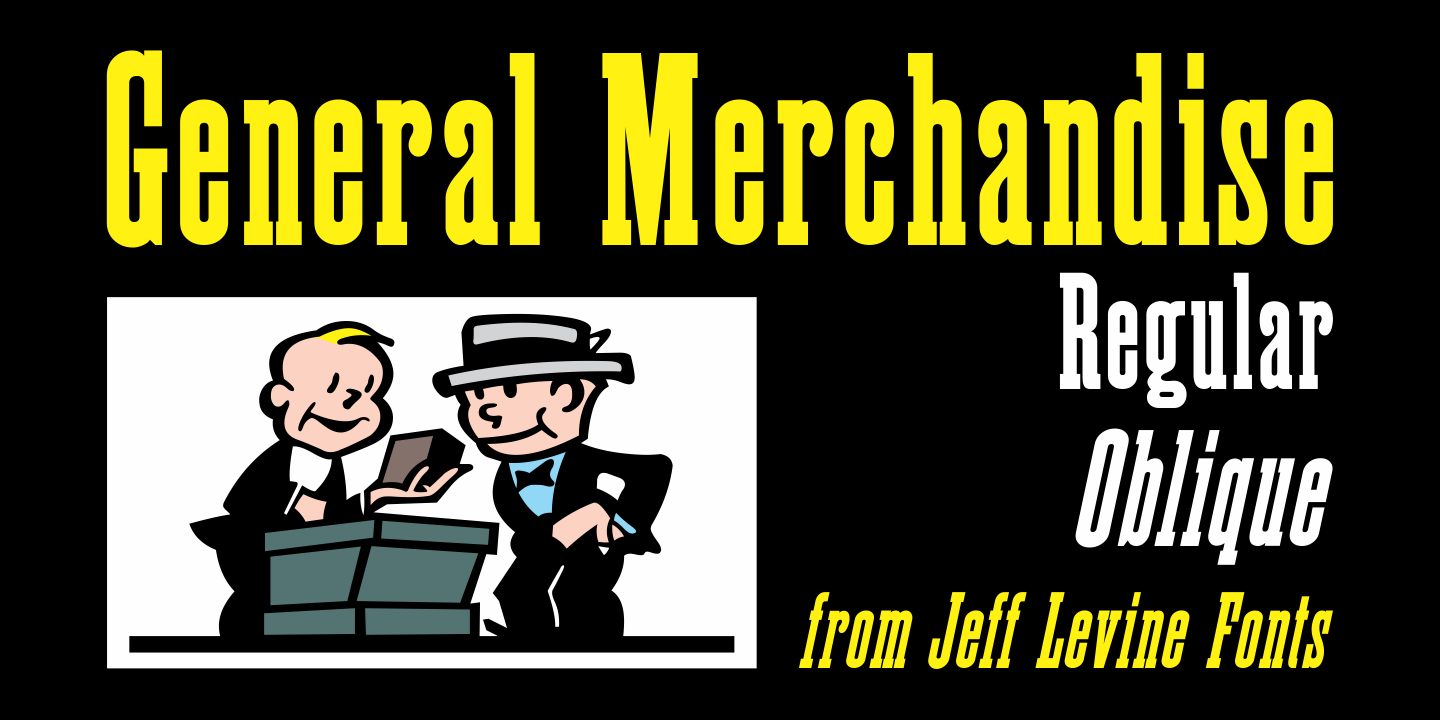
General Merchandise JNL Font is perfect for vintage store signage, retro advertising campaigns, antique shop branding, classic Americana designs, nostalgic packaging labels, historical recreation projects, old-fashioned product catalogs, and heritage brand identity systems.
General Merchandise JNL Font is exciting because it authentically captures the commercial charm of early 20th century American retail culture with its bold, utilitarian letterforms that evoke memories of general stores and classic merchandising displays, embodying the entrepreneurial spirit and honest commerce that built American small-town business traditions, making it ideal for projects requiring vintage authenticity and nostalgic commercial appeal.
The General Merchandise JNL Font family includes multiple weights and styles such as Regular, Bold, Light, Condensed, and Stencil versions, providing designers with comprehensive options for creating authentic typographic systems that maintain the vintage commercial aesthetic across various retail and heritage applications.
General Merchandise JNL Font Free Download offers designers access to a historically rich typeface that embodies the golden age of American commerce and the entrepreneurial spirit of classic retail establishments. This exceptional font captures the essence of traditional general stores and the authentic merchandising culture that defined small-town America, creating a powerful tool for brands seeking to communicate heritage, reliability, and time-tested quality.
The font's robust letterforms feature practical proportions and commercial-grade durability that mirror the straightforward approach found in traditional retail signage and vintage advertising materials. Each character has been carefully crafted to work effectively within compositions, ensuring that General Merchandise JNL Font delivers exceptional readability while maintaining the authentic character that makes it so effective in heritage and retail applications.
Professional designers working with heritage brands and vintage-inspired projects appreciate this font's ability to instantly communicate authenticity and commercial tradition. The typeface excels in applications where nostalgic appeal meets contemporary marketing needs, from artisanal product branding to vintage-themed retail environments, from historical museum displays to heritage tourism promotions.
The comprehensive character set includes period-appropriate symbols and commercial typography elements, making it particularly suitable for vintage retail projects while preserving its distinctive early American character. Whether used for store signage, product packaging, or heritage advertising materials, this font delivers consistent visual impact that enhances brand credibility and nostalgic connection.
Creative professionals in the retail and heritage industries have embraced General Merchandise JNL Font for its unique ability to bridge historical authenticity with modern commercial applications. Its versatility allows it to adapt seamlessly to both vintage recreation projects and contemporary brands seeking classic American appeal while maintaining its traditional retail character.
This remarkable typeface has become an essential tool for designers who understand that certain brands benefit from typography that connects with American commercial heritage and traditional values. Its ability to instantly communicate vintage authenticity and retail reliability makes it invaluable for businesses seeking to establish trust through historical connection.